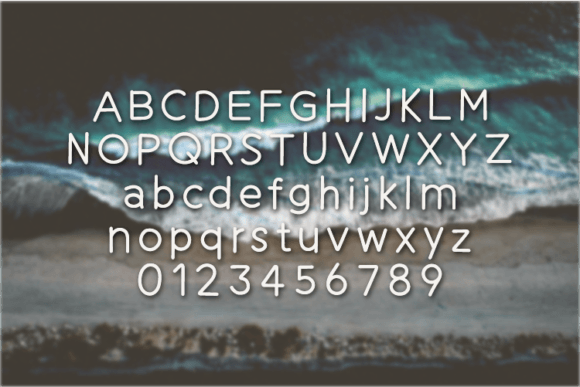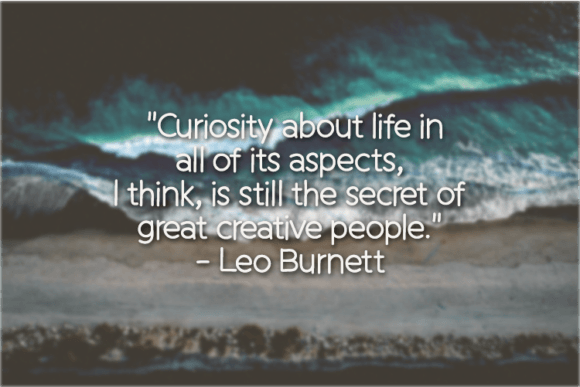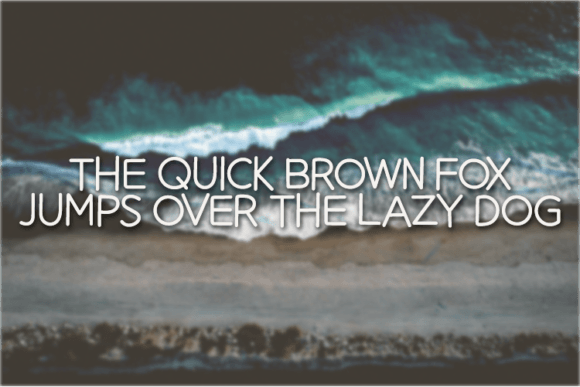
Introduction to Raadhesh Font
As designers, we’ve all been there – staring at a blank page, trying to find the perfect font to bring our creative project to life. The search can be overwhelming, especially when you’re looking for a font that’s not only visually appealing but also versatile enough to be used across different mediums. For me, that moment of epiphany came when I stumbled upon the Raadhesh Font.
This unique sans serif font has been making waves in the design community, and for good reason. Its natural, unaltered design makes it perfect for quotes, notes, tees, and any product design where a high-quality font is essential. With its transparent background, the Raadhesh Font is a valuable resource for designers who want to add a touch of elegance to their work.
Key Features of Raadhesh Font
- Transparent background for seamless integration in design
- Unique, handcrafted font design perfect for adding a personal touch to your creative project
Honest Review: Raadhesh Font
As a designer, I’m always on the lookout for high-quality design resources to elevate my creative projects. The Raadhesh Font caught my attention with its sleek and modern aesthetic, making it a great addition to any design.
- ⚠️ The Raadhesh Font doesn’t support transparent background, which may limit its use in certain design scenarios
Overall, I’m impressed with the Raadhesh Font’s design and functionality. While it has its limitations, it’s an excellent resource for designers looking for a high-quality, free font to enhance their creative projects.
Tips for Getting the Most Out of Raadhesh Font
For optimal results, use Raadhesh Font in conjunction with a high-quality image or graphic. Experiment with different font sizes and colors to achieve a unique design. Consider using the transparent background feature to add depth to your design.
Common Use Cases for Raadhesh Font
Raadhesh Font is ideal for creative projects that require a unique and stylish font. It can be used in logos, branding materials, and marketing campaigns. Its versatility makes it a great design resource for various industries, including fashion, art, and entertainment.
Alternatives to Raadhesh Font
Montserrat is a popular sans-serif font that is known for its clean and modern design. It is ideal for use in creative projects that require a high-quality font with a transparent background. Montserrat is free to download and is widely used in design.
Montserrat compares to Raadhesh Font in its clean and modern design, but it has a more geometric feel. Montserrat is a better choice for projects that require a lot of text, as it is highly legible.
Open Sans is a modern sans-serif font that is designed to be highly legible. It is a popular choice for designers who need a high-quality font with a transparent background. Open Sans is free to download and is widely used in creative projects.
Open Sans compares to Raadhesh Font in its clean and modern design, but it has a more friendly and approachable feel. Open Sans is a better choice for projects that require a lot of text, as it is highly legible and easy to read.
Lato is a modern sans-serif font that is designed to be highly legible. It is a popular choice for designers who need a high-quality font with a transparent background. Lato is free to download and is widely used in creative projects.